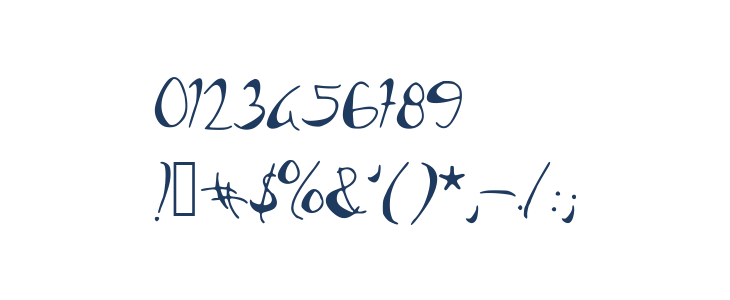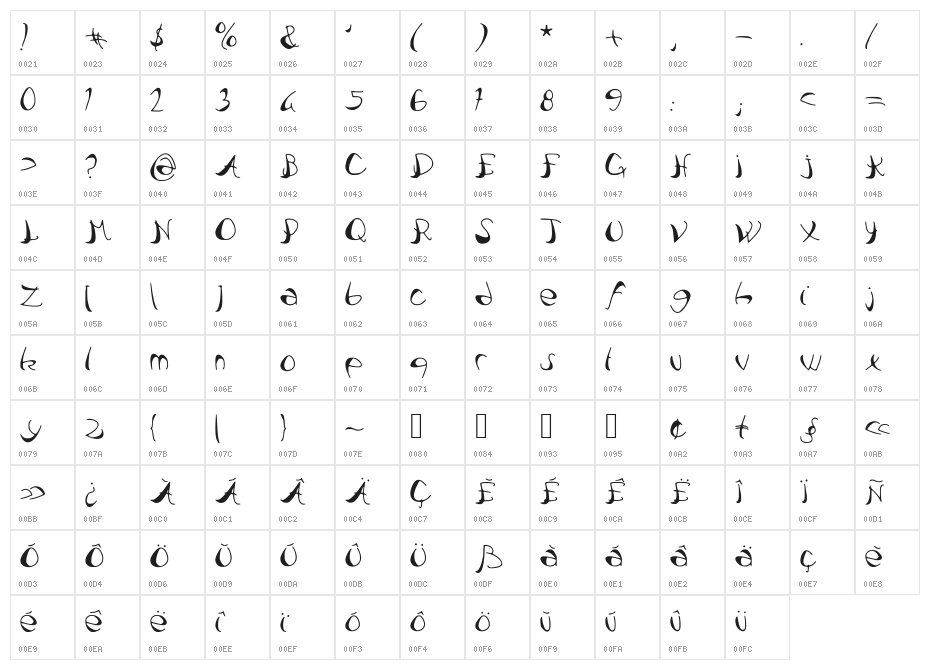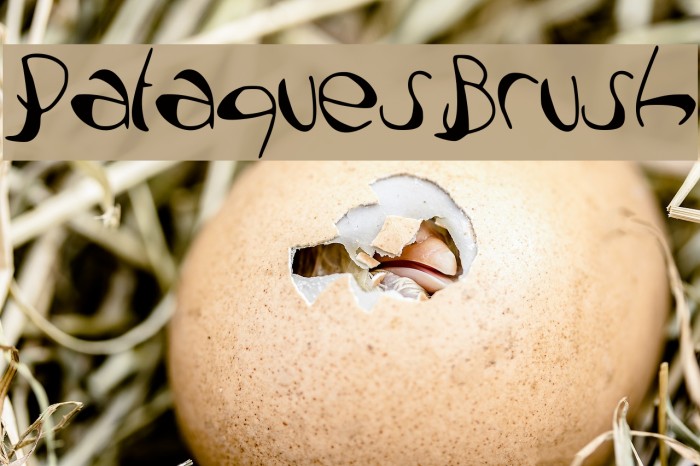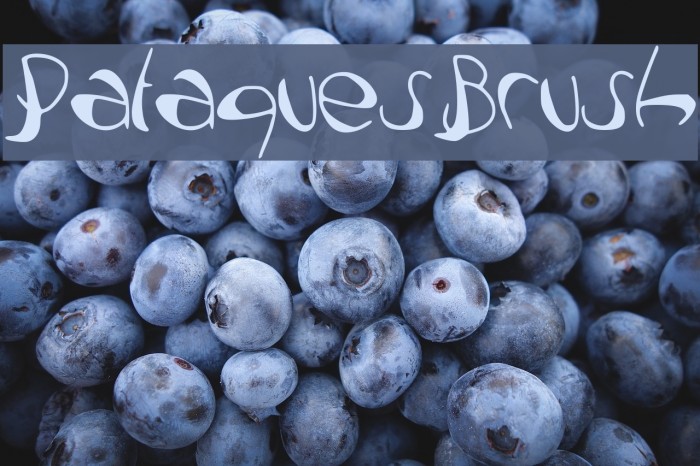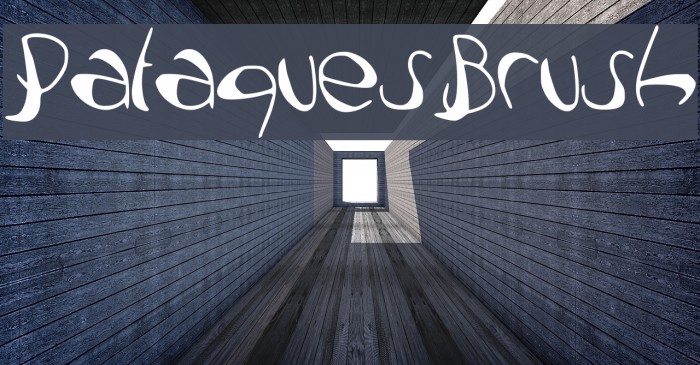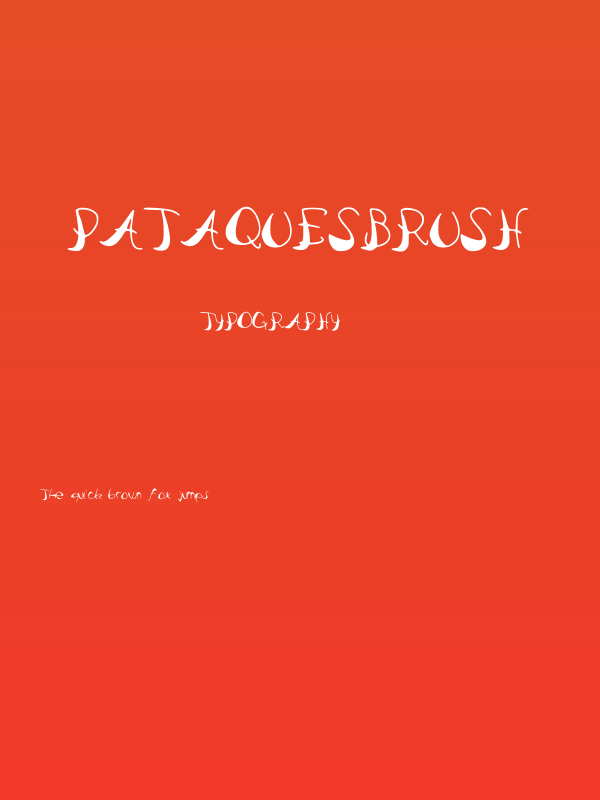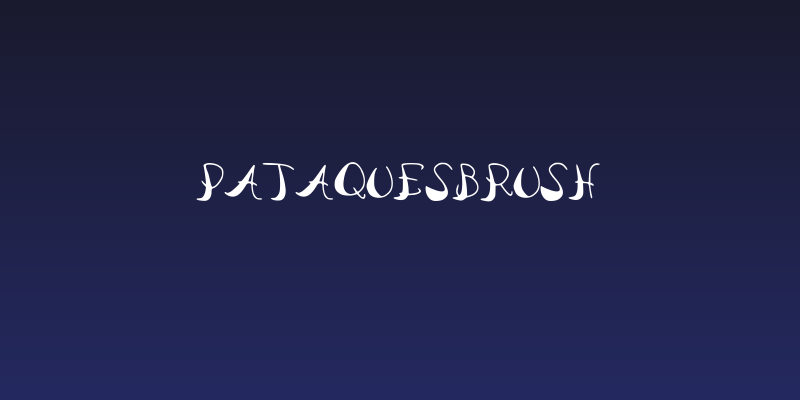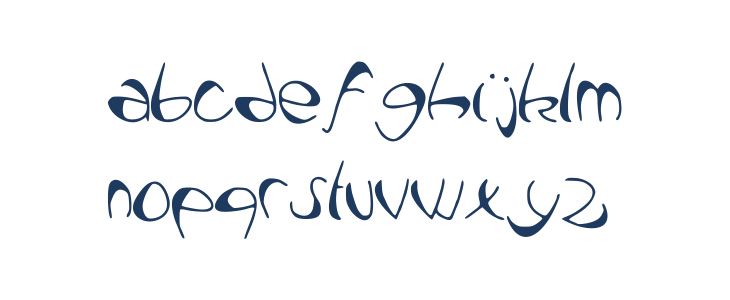
PataquesBrush Font
PataquesBrush Description
This font exhibits a dynamic and expressive style, characterized by its brush-like strokes and fluid, organic forms. The uppercase letters are bold and sweeping, with a sense of motion that suggests a hand-painted aesthetic. The lowercase letters maintain this fluidity, with unique curves and angles that add to the overall artistic feel. Numbers and special characters are equally expressive, integrating seamlessly with the alphabetic characters. The font's playful and artistic nature makes it ideal for creative projects that require a touch of personality and flair.
Overall StyleArtistic, Expressive, Handcrafted
Proposed ProjectsIdeal for artistic projects, branding, posters, and invitations that require a creative and personal touch.